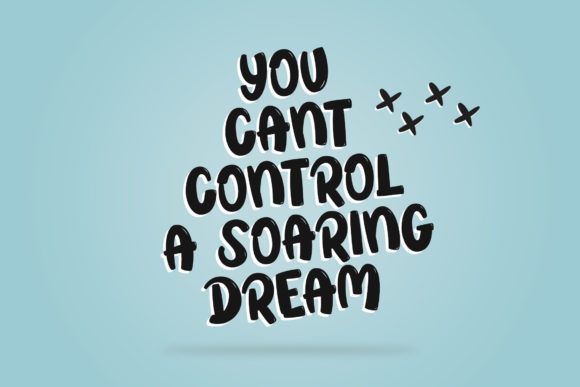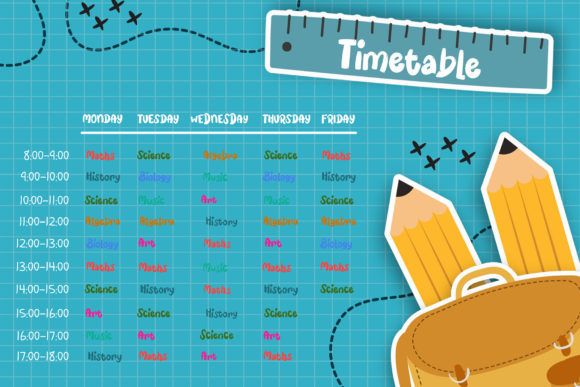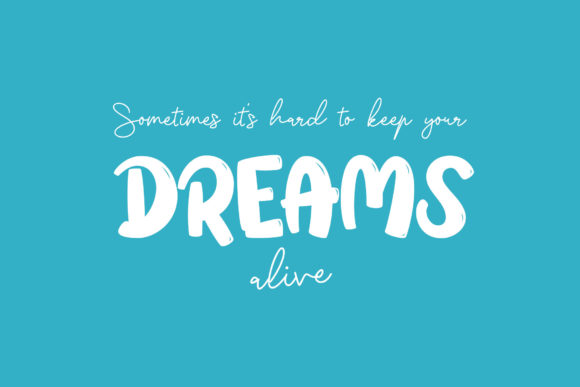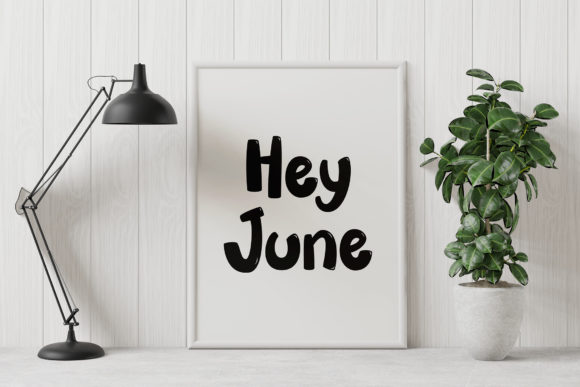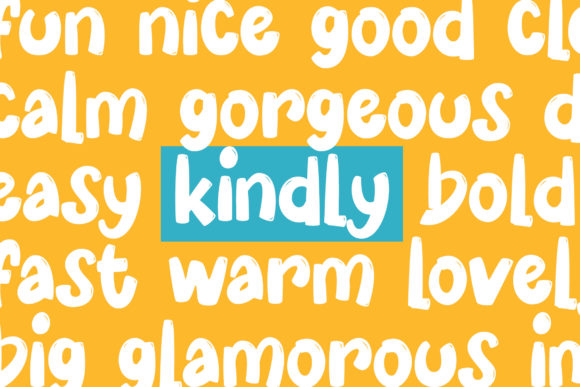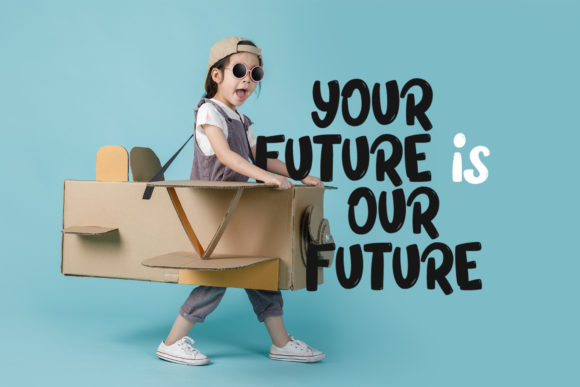
Introducing Blue Cheries Font: The Fun and Bubbly Display Font for Creative Designs
Are you looking for a font that can add a touch of beauty and playfulness to your designs? Look no further than Blue Cheries Font! This fun and bubbly display font is perfect for a wide range of creative projects, from cartoon-related designs and children’s games to quotes, titles, brand names, book covers, posters, and more.
What Makes Blue Cheries Font So Special?
Blue Cheries Font is a unique and eye-catching font that is sure to grab attention. Its fun and bubbly design makes it perfect for projects that require a touch of whimsy and playfulness. The font is highly versatile and can be used for a wide range of design projects, from digital designs to print materials.
Key Features of Blue Cheries Font
- Fun and Bubbly Design: Blue Cheries Font has a unique and playful design that is sure to add a touch of beauty to your designs.
- Highly Versatile: This font is perfect for a wide range of design projects, from cartoon-related designs and children’s games to quotes, titles, brand names, book covers, posters, and more.
- Easily Readable: Despite its playful design, Blue Cheries Font is highly readable, making it perfect for use in titles, headings, and other design elements.
- Scalable: This font is highly scalable, making it perfect for use in a wide range of design projects, from small icons to large billboards.
Use Cases for Blue Cheries Font
Blue Cheries Font is a highly versatile font that can be used for a wide range of design projects. Here are some use cases where this font really shines:
- Cartoon-Related Designs: Blue Cheries Font is perfect for cartoon-related designs, such as character designs, comics, and animated movies.
- Children’s Games: This font is highly suitable for children’s games, such as puzzle games, adventure games, and educational games.
- Quotes and Titles: Blue Cheries Font is perfect for use in quotes and titles, adding a touch of beauty and playfulness to your text.
- Brand Names: This font is highly suitable for use in brand names, adding a touch of whimsy and playfulness to your brand identity.
- Book Covers: Blue Cheries Font is perfect for use in book covers, adding a touch of beauty and playfulness to your book design.
- Posters: This font is highly suitable for use in posters, adding a touch of whimsy and playfulness to your poster design.
Tips for Using Blue Cheries Font
Here are some tips for using Blue Cheries Font in your designs:
- Use it for Headings and Titles: Blue Cheries Font is perfect for use in headings and titles, adding a touch of beauty and playfulness to your text.
- Experiment with Colors: This font looks great in a wide range of colors, so don’t be afraid to experiment and find the perfect color for your design.
- Pair it with Other Fonts: Blue Cheries Font pairs well with other fonts, so don’t be afraid to experiment with different font combinations.
- Use it for Digital and Print Materials: This font is highly versatile and can be used for both digital and print materials.
Blue Cheries Font is a fun and bubbly display font that is perfect for a wide range of creative projects. Its unique and eye-catching design makes it highly suitable for cartoon-related designs, children’s games, quotes, titles, brand names, book covers, posters, and more. With its highly readable design, scalability, and versatility, Blue Cheries Font is a great choice for designers and crafters looking to add a touch of beauty and playfulness to their designs.